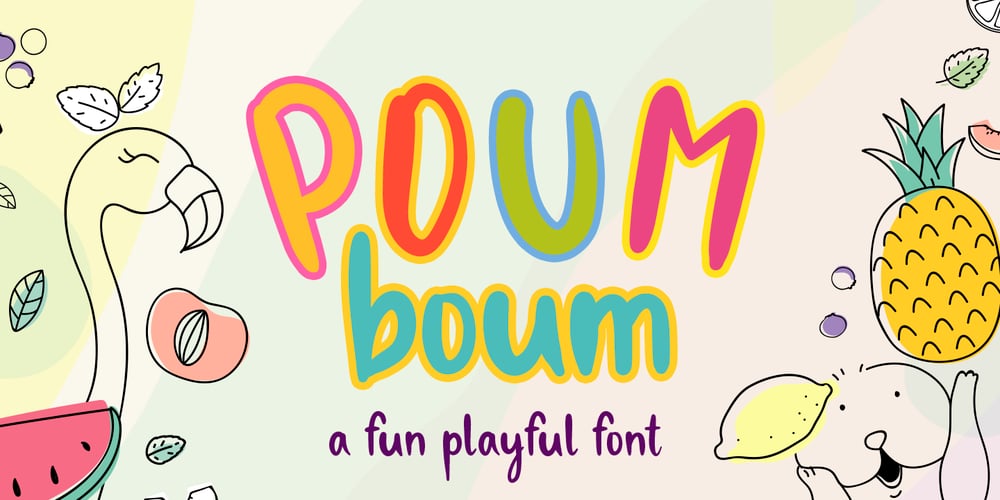
Poum Boum Font Family was designed by Pavel Larin and published by Larin Type Co. Poum Boum contains 1 styles and family package options. This is a fun font playful that is perfect for creating your project, it can be used to create a beautiful inscription for t-shirts, children’s books, branding, small business, book magazine, stationery, marketing, blog, invitation and more.